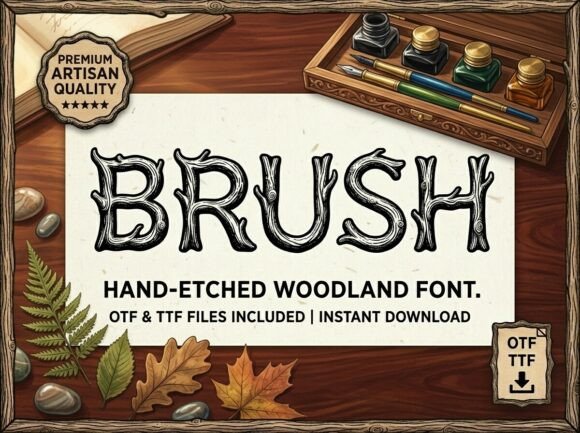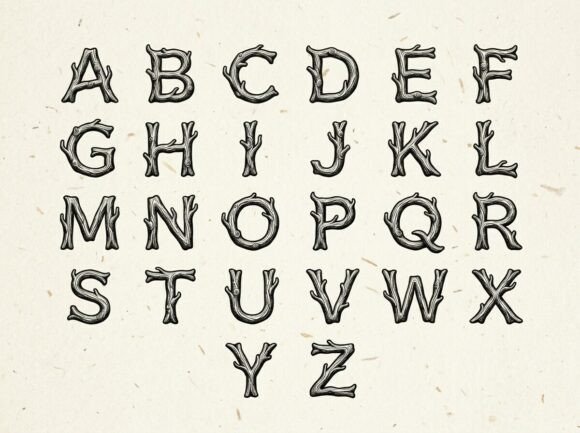
Unleash the Wild Side of Typography with Brush Font
Are you tired of using the same old fonts for your designs? Do you want to add a touch of natural texture and whimsy to your typography? Look no further than Brush Font, a monumental display font that’s deeply rooted in the great outdoors. With its bold, illustrative letterforms and organic personality, Brush is the perfect choice for designers and crafters looking to bring a sense of forest folklore and modern eco-consciousness to their work.
The Inspiration Behind Brush Font
Brush Font is a typeface that’s all about capturing the essence of nature. Its unique design features rhythmic, hand-etched bark grain and budding branch extensions that give it a distinctly wild and woody soul. The font’s heavy structural weight and organic personality make it perfect for use in a variety of applications, from independent garden center identities to boutique organic skincare logos, fantasy adventure games, and high-impact social media headers.
Key Features of Brush Font
- Bold, Illustrative Letterforms: Brush Font features bold, eye-catching letterforms that are sure to make a statement in any design.
- Rhythmic, Hand-Etched Bark Grain: The font’s unique bark grain texture gives it a natural, organic feel that’s perfect for designs that want to evoke the great outdoors.
- Budding Branch Extensions: The font’s branch extensions add a touch of whimsy and playfulness to its design, making it perfect for use in fantasy adventure games and other applications where a sense of wonder is desired.
- Heavy Structural Weight: Brush Font’s heavy structural weight makes it perfect for use in headlines and titles, where it can help grab the reader’s attention.
- Organic Personality: The font’s organic personality makes it perfect for use in designs that want to evoke a sense of naturalness and eco-friendliness.
Use Cases for Brush Font
So, what can you use Brush Font for? The possibilities are endless, but here are a few ideas to get you started:
- Independent Garden Center Identities: Brush Font is perfect for use in garden center logos, signage, and marketing materials, where its natural, organic feel can help evoke the sense of a lush, green oasis.
- Boutique Organic Skincare Logos: The font’s eco-friendly vibe makes it a great choice for use in logos and branding materials for organic skincare companies.
- Fantasy Adventure Games: Brush Font’s whimsical, adventurous feel makes it perfect for use in fantasy adventure games, where it can help create a sense of wonder and excitement.
- High-Impact Social Media Headers: The font’s bold, eye-catching design makes it perfect for use in social media headers, where it can help grab the reader’s attention and draw them in.
Tips for Using Brush Font
Here are a few tips for getting the most out of Brush Font:
- Use it sparingly: Brush Font is a bold, attention-grabbing font that’s best used sparingly. Try using it for headlines and titles, and pairing it with a simpler font for body text.
- Experiment with colors: Brush Font looks great in a variety of colors, from earthy tones like green and brown to bold, bright colors like blue and red.
- Play with texture: Brush Font’s natural texture makes it perfect for use in designs that incorporate natural materials like wood, stone, or fabric.
Brush Font is a unique and versatile typeface that’s perfect for designers and crafters looking to add a touch of natural texture and whimsy to their work. With its bold, illustrative letterforms and organic personality, Brush is the premier choice for independent garden center identities, boutique organic skincare logos, fantasy adventure games, and high-impact social media headers. So why wait? Download Brush Font today and start unleashing the wild side of typography in your designs!